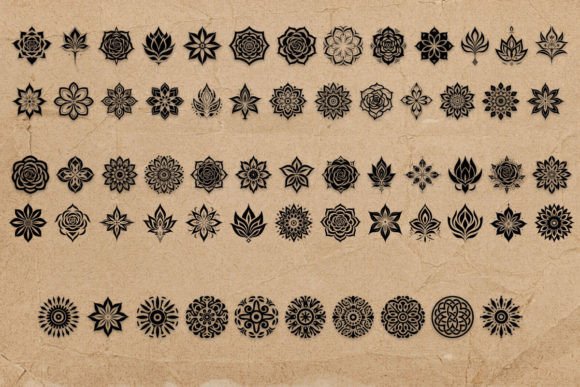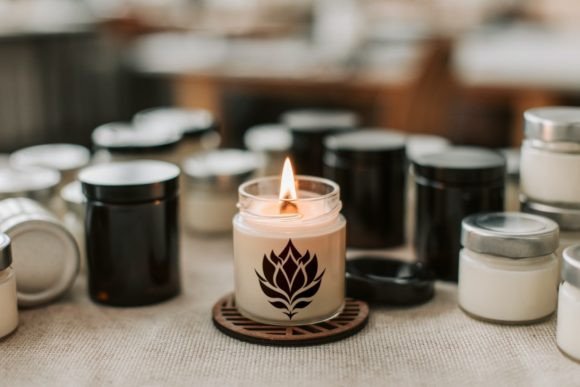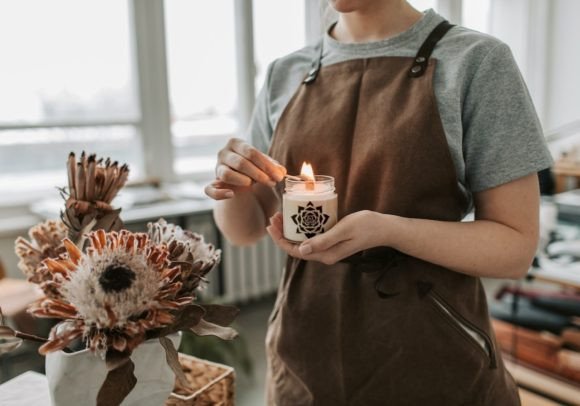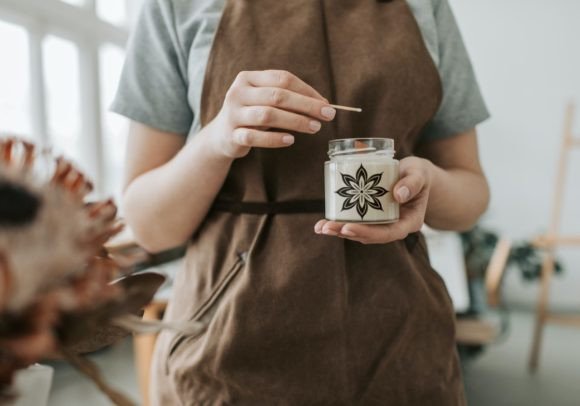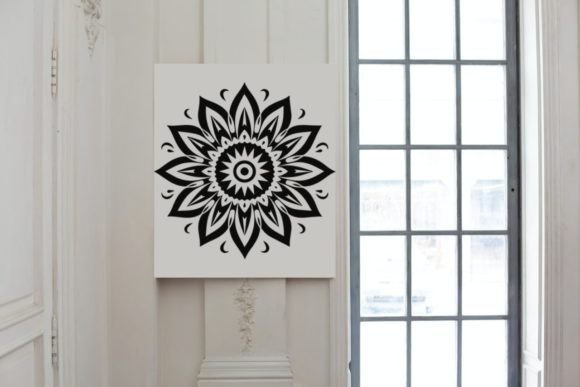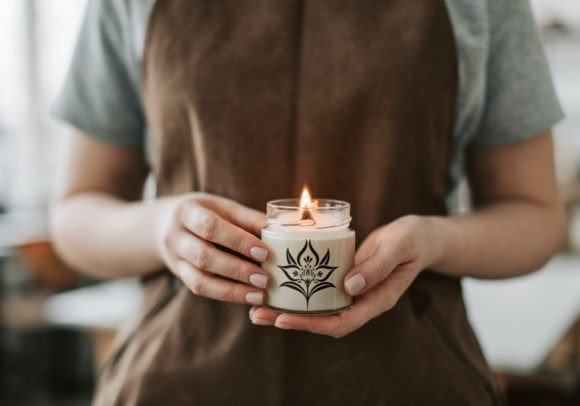
Introduction to Secret Geometric Font Font
Fonts play a crucial role in design, and the Secret Geometric Font font is a typeface that brings both character and versatility to any project. Whether you’re working on a branding project, a website, or a print design, the Secret Geometric Font font offers a unique style that can elevate your work.
The Secret Geometric Dingbats font offers 62 enigmatic symbols, comprising 26 uppercase letters, 26 lowercase letters, and 10 numbers (0-9).
These unique design elements are steeped in secrecy and intrigue, making them ideal for adding a touch of mystery and sophistication to your creative endeavors .
Key Features of Secret Geometric Font Font
Why Choose Secret Geometric Font Font?
The Secret Geometric Font font is more than just a typeface – it’s a design tool that helps you communicate your message with style and clarity. Its unique character set and versatile design make it suitable for a wide range of applications, from elegant invitations to bold headlines.
With its carefully crafted letterforms and balanced proportions, the Secret Geometric Font font ensures readability and visual appeal across all mediums.
What makes Secret Geometric Font font special?
The Secret Geometric Font font stands out with its unique design, exceptional readability, and versatility across various design applications.